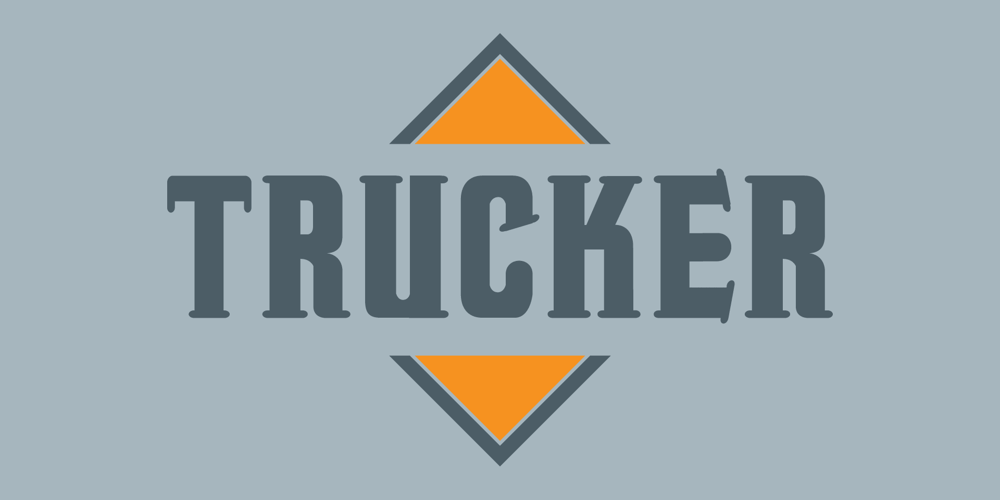
Trucker Font Family was designed by Chank Diesel and published by Chank. Trucker contains 4 styles and family package options. TRUCKER is a remaster of a classic Chank Font, first released in 1996 with the classic dirty name Fornicator. In addition to giving the font the more family-friendly name Trucker, Chank has improved the original character set and souped it up with cool new italics and a brand-new set of small caps. Best of all, if you click the OpenType swash option while you’re working in the Adobe Creative Suite programs, you can add trucker speed racing stripes to the characters. Check out the Trucker font specimen PDF to get a better look under the hood. Trucker and Trucker Italic have wide, rounded serifs that give its bold characters extra strength and flair. This font has a tough, vintage style that makes it a powerful and reliable performer for the long haul.